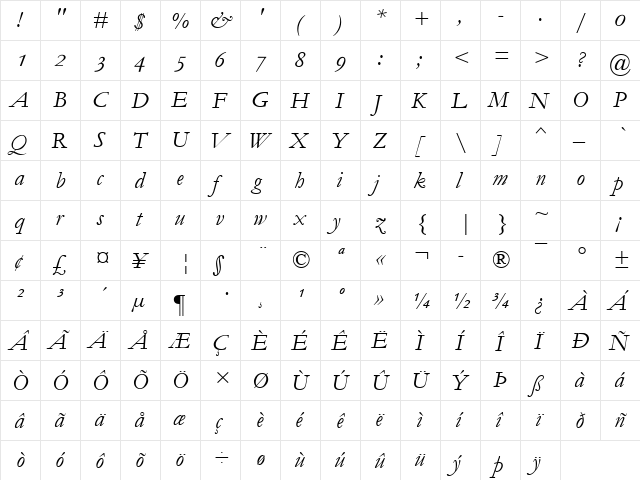
jGaramond Italic
| Designer | Claude Garamond (1480 -1561) |
Design Context for jGaramond Typeface
jGaramond offers clean, dependable letterforms without strong stylistic allegiance, making it a practical choice for designers who need flexibility. The slanted form adds forward momentum and visual energy.